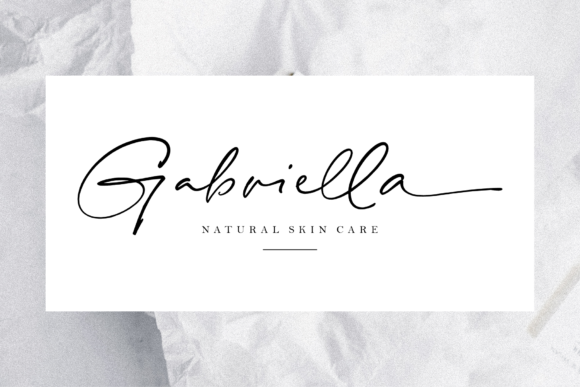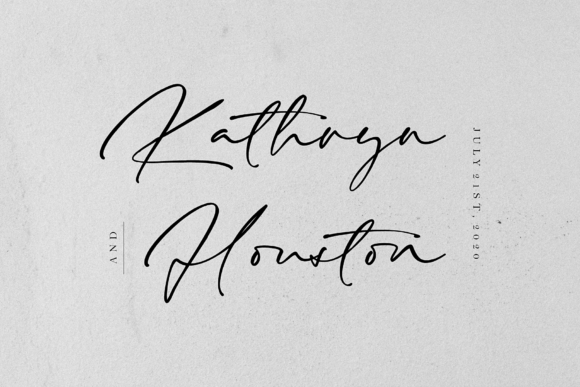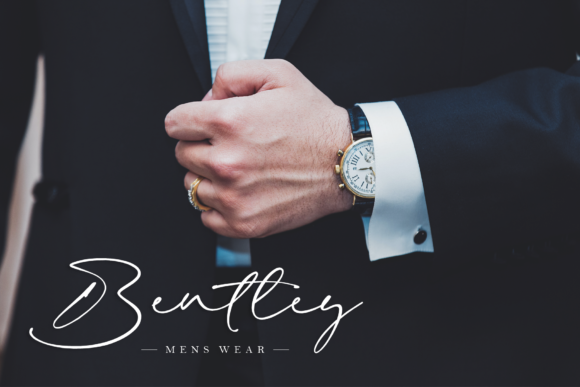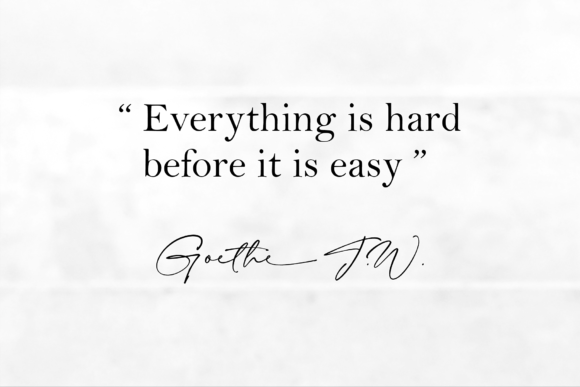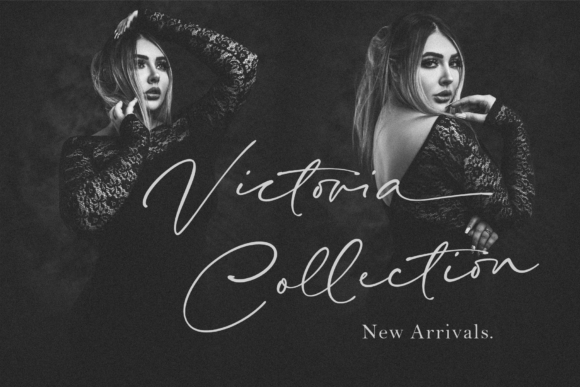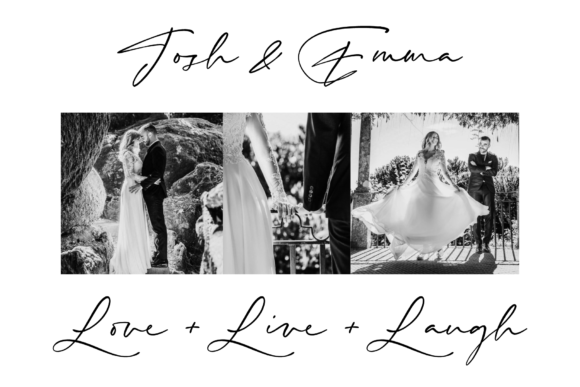
Introduction to Eaton Font
Eaton is an exquisite handwritten font, masterfully designed to become a true favorite.
Key Features of Eaton Font
Why Choose Eaton Font?
Eaton Font offers exceptional quality and versatility, making it a valuable addition to your design toolkit. Whether you’re creating for personal projects or commercial use, Eaton Font delivers professional results.